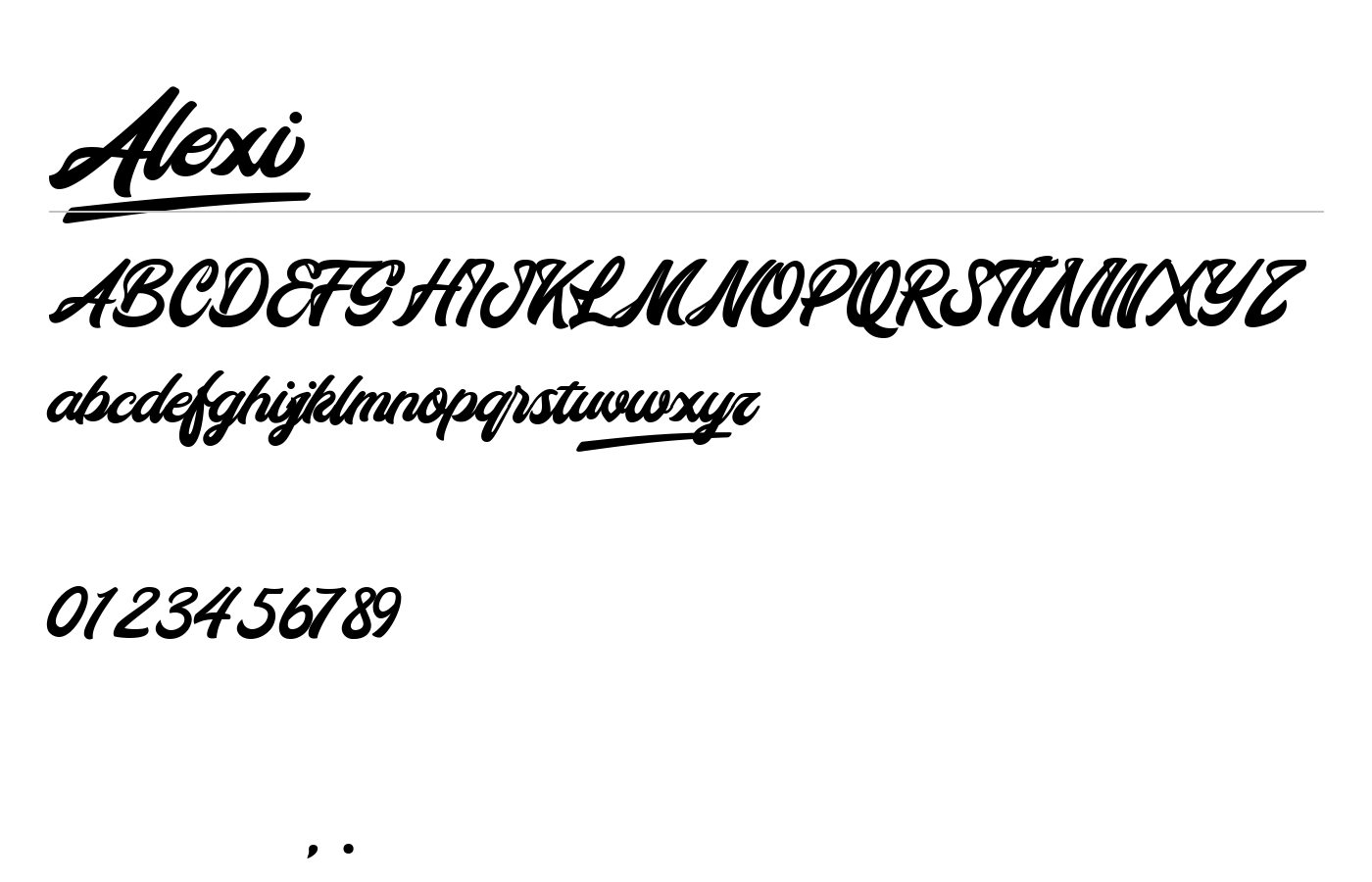
Alexi is a bold, cursive script font with a smooth, flowing style that mimics elegant hand lettering. Its connected letterforms and moderate contrast give it a lively and friendly personality, making it great for branding, invitations, and headline use where a personal, stylish touch is desired. This font works well in creative and casual settings, adding a sense of charm and sophistication.
Alexi Font